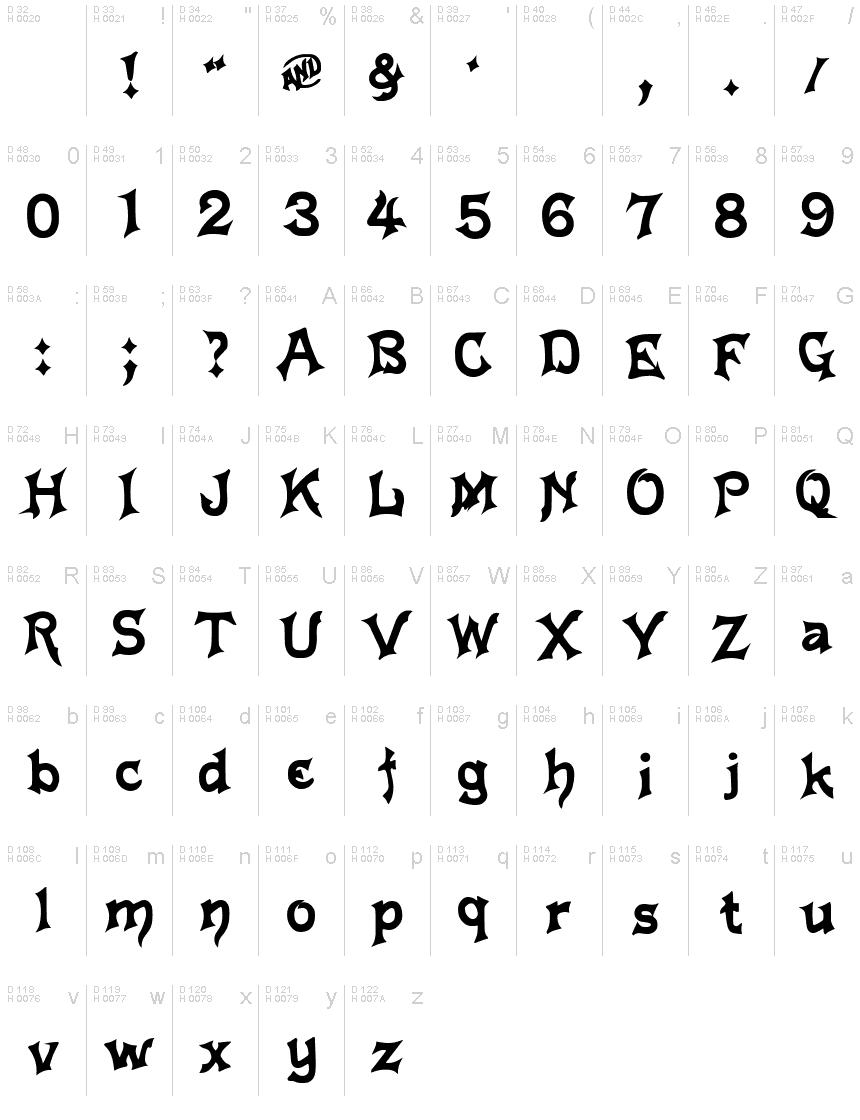
Magicskoolbus Regular
Magicskoolbus is a bold gothic font designed by Christina Rick that exudes an edgy and mysterious vibe. Its strong lines and sharp edges make it perfect for projects that require a touch of rebellion, such as rock bands' logos, horror movie posters, or tattoo designs. This typeface's thick strokes also make it suitable for headlines or titles that need to grab attention while maintaining legibility. Whether you're creating a gothic-themed website or designing a spooky Halloween party invitation, Magicskoolbus will add an unforgettable touch to your project and leave a lasting impression on your audience.